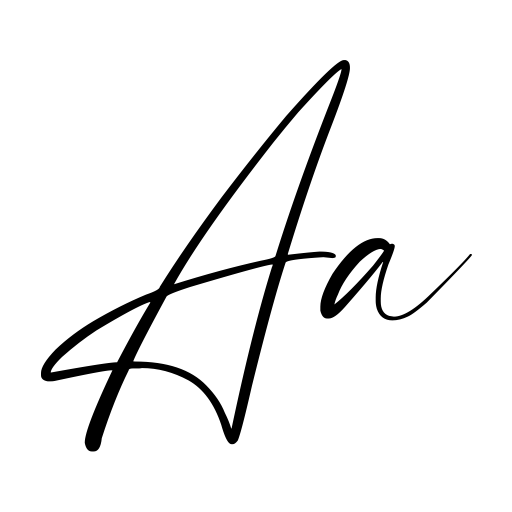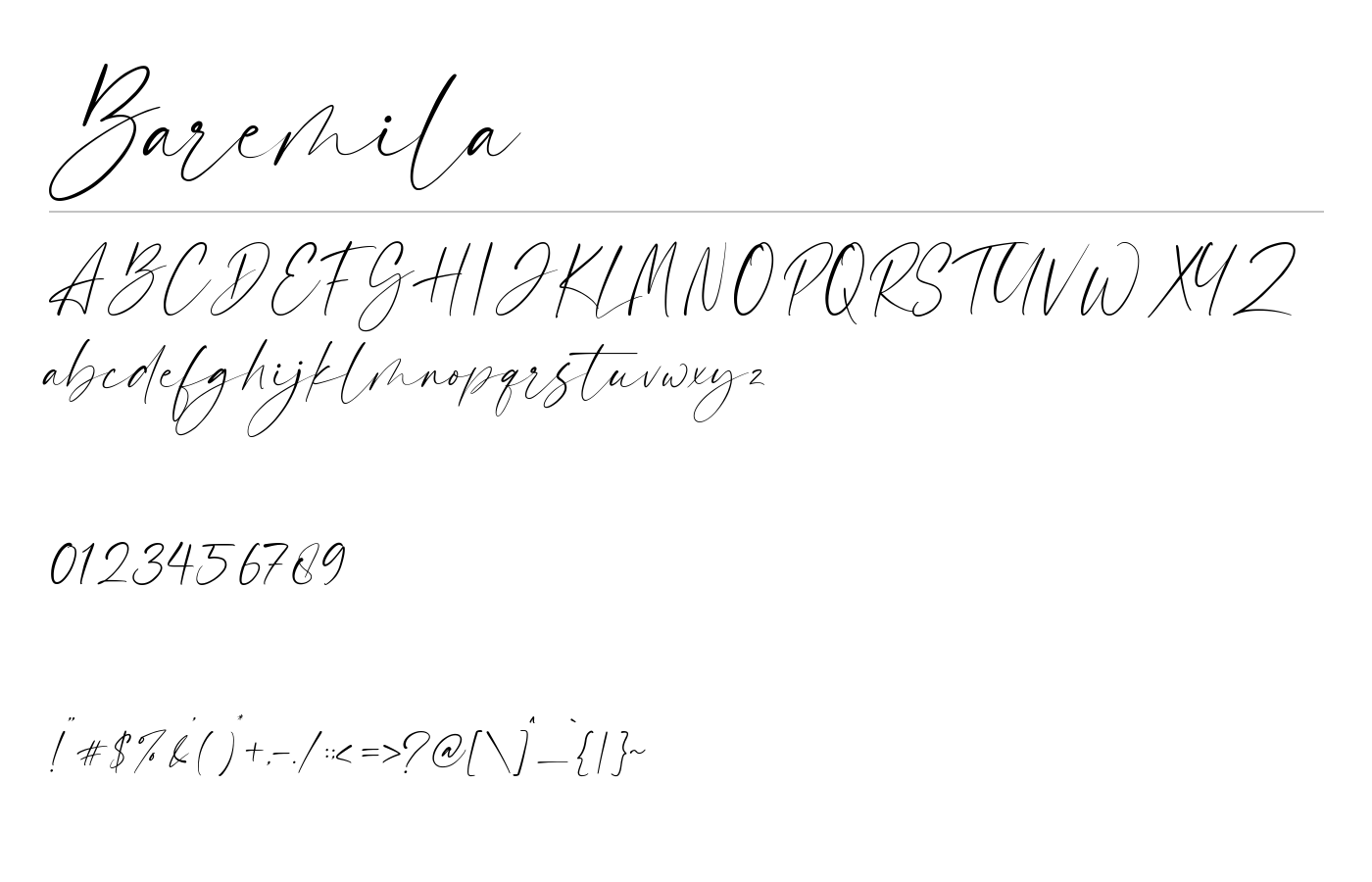
Baremila is a delicate and elegant handwritten script font that features thin, flowing strokes with a natural, casual feel. Its tall, slender letterforms and smooth curves give it a graceful, personal touch, perfect for invitations, branding, and projects seeking a stylish yet approachable look. This font works beautifully in designs where a refined and intimate atmosphere is desired.
Baremila Font
About Baremila Font